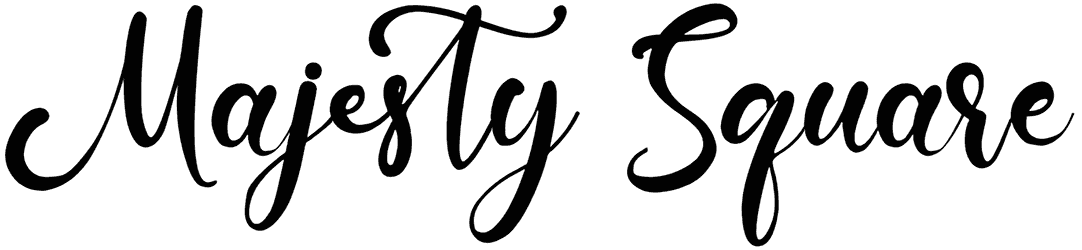
Majesty Square Font
Majesty Square is perfect for adding a touch of modern sophistication to your digital artwork. For its pleasing tune and the striking visual impact it brings to invitations, cards, commercials, and posters, designers can’t go wrong with this calligraphy font, which features letters that are connected.
Take on the task of creating something amazing with this handwritten script font, and you will impress your client in a big way.